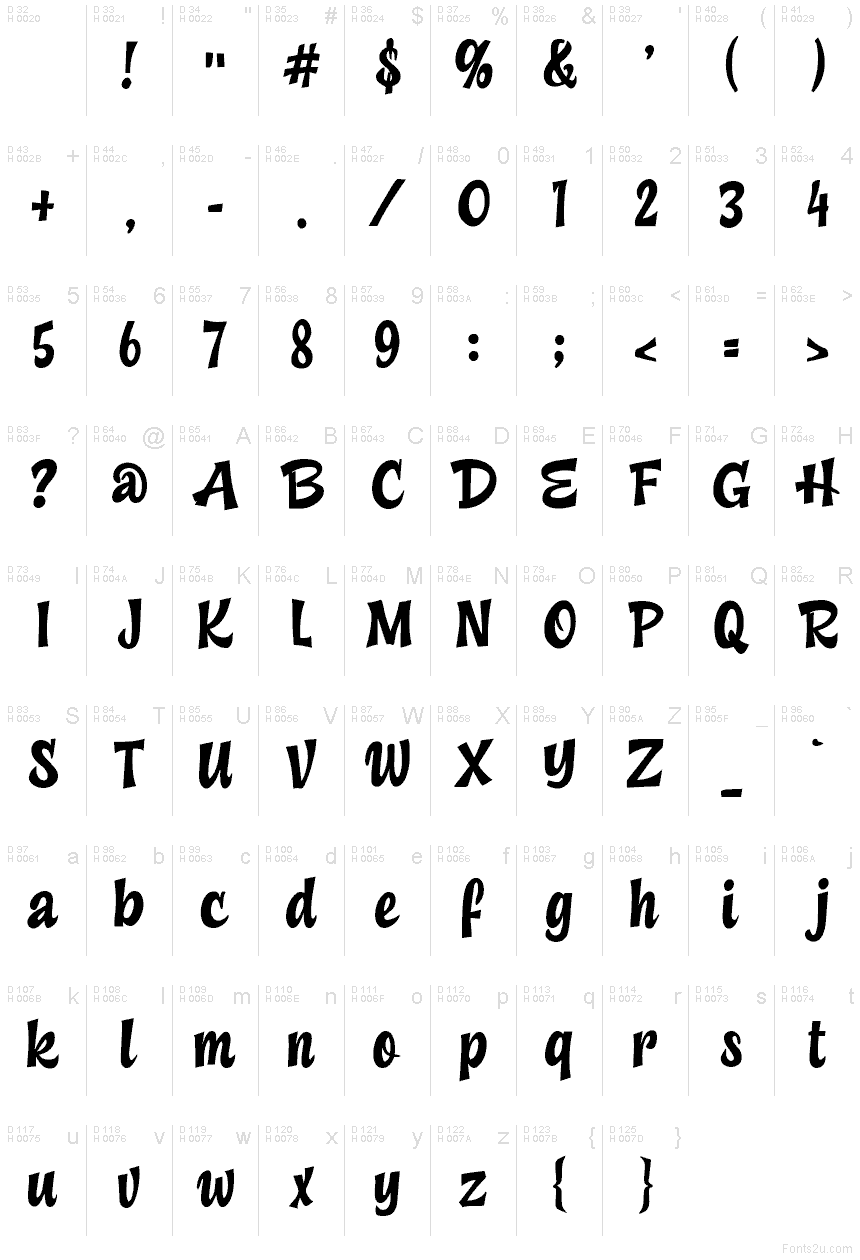
Royal Cocktail
Royal Cocktail font by BlackFridayFont FMF is a free comic display typeface that feels like a bold brushstroke across a neon bar sign. The letters are thick, inky, and slightly bouncy, with lively curves that swing from one character to the next, giving headlines a hand-painted, party-ready energy. There’s a playful confidence to the rhythm—strong enough to grab attention, but loose enough to feel friendly and fun.
Using Royal Cocktail, your branding instantly picks up a festive, after-hours vibe that works beautifully for beverage labels, food packaging, party invitations, merch and t-shirt graphics, social posts, and event posters. This free font shines when you set it large and let the chunky strokes breathe with generous spacing. For a simple pairing, match Royal Cocktail with a clean geometric sans for smaller text to keep the message clear while the script does the celebrating.